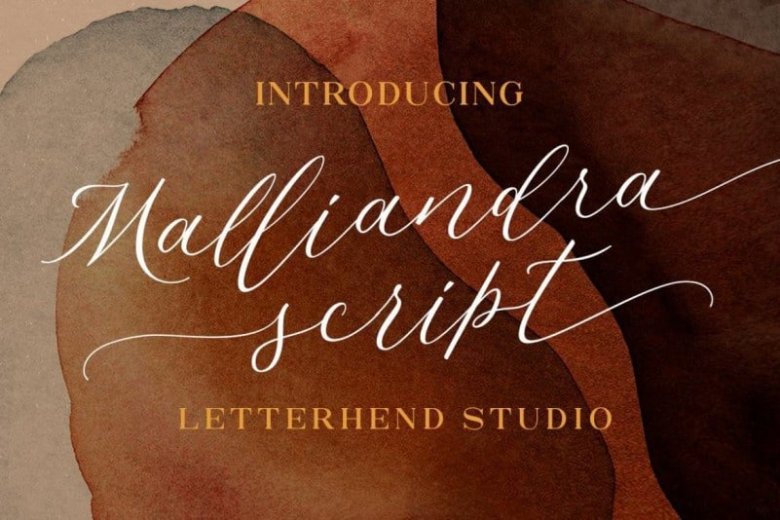
Malliandra Calligraphy Font
Malliandra Calligraphy Font is an incredibly distinct, delicate and timeless calligraphy font. To create real hand lettered effect. It’s a script font from the designer Letterhend Studio. Malliandra Calligraphy Font is a stylish and romantic handwritten font. Flowing and elegant, this font will elevate each of your dear creative ideas.